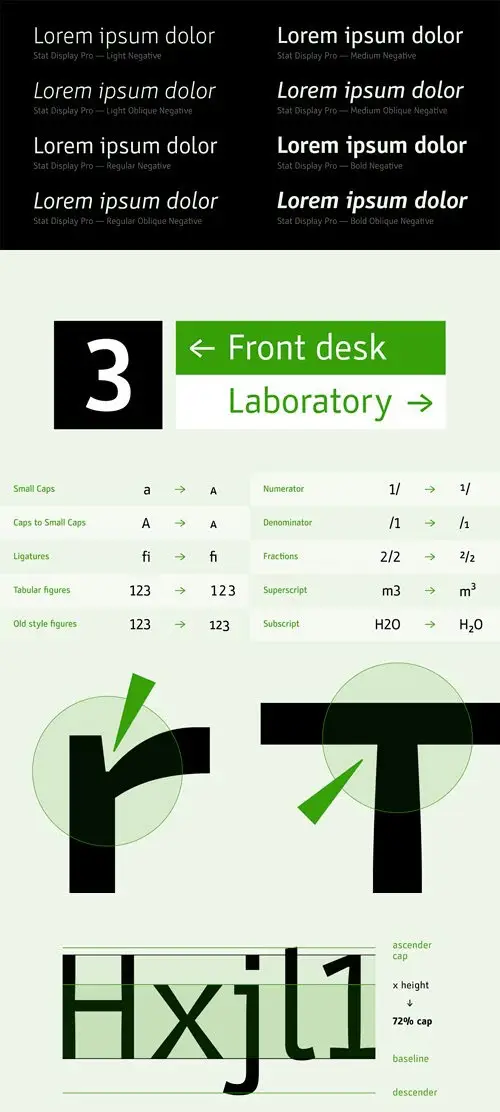
Stat Display Pro Font Family
Stat Display Pro is an information design sans serif type family legible in circumstances of low visibility. Its large character set with multiple weights is defined by optimal size ratio, distinctive letter shapes, wide aperture and balanced counters. Stat Display Pro remains legible in unfavorable circumstances of distance, size, movement and similar. It contains nearly 700 glyphs, including diacritics, ligatures, small caps, old–style figures, arrows and more. This enables it to achieve wide language support. It consists of four main (Light, Regular, Medium, Bold) and four secondary, negative weights (Light Negative, Regular Negative, Medium Negative, Bold Negative) which are accompanied by their corresponding obliques. Stat Display Pro type family has higher than average x height (72% of cap height) which is accompanied by matching ascender and descender size ratios. With its distinctive letter shape detail it minimizes the possibility of letter shape confusion, while optimizing legibility with wide aperture and balanced counters. Its main intended use is information design, where it, with its characteristics, meets the requirements of wayfinding, infographics, table setting and much, much more. The development of the type family was based on research in legibility to achieve highly legible letter shapes, while not diminishing their visual character.